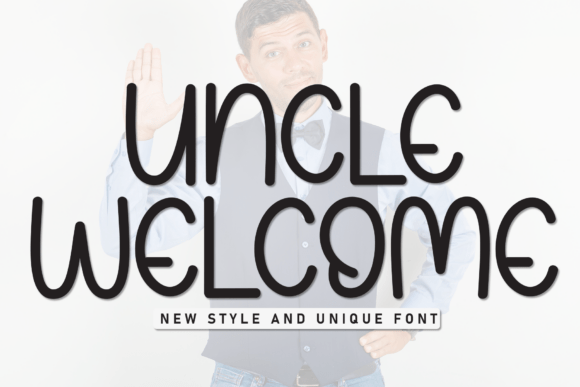
Uncle Welcome: A Handwritten Display Typeface for Editorial Charm
As someone who designs newsletters, crafts ebook covers, and structures long-form blog layouts, I pay close attention to how a single typeface can shift tone, guide attention, and reinforce voice. Uncle Welcome is one of those rare display fonts that doesn’t just sit on the page—it invites the reader in. With its warm, amiable handwriting style, it balances playfulness and polish in a way few script fonts achieve. It’s not overly ornate, nor does it sacrifice legibility for whimsy. That balance makes it unusually versatile across editorial formats—from digital-first publications to print-ready workbooks.
Why Uncle Welcome Fits Editorial Design So Naturally
At its core, Uncle Welcome is a handwritten display typeface, meaning it’s built for impact at larger sizes—not extended body text. Its strokes carry gentle variation, soft terminals, and subtle bounce, giving it organic rhythm without visual noise. The lowercase ‘a’, ‘g’, and ‘y’ feature friendly, open forms; the capitals have relaxed proportions and modest contrast—never stiff or formal. This isn’t calligraphy mimicking ink on parchment; it’s contemporary handwriting with intention. That distinction matters when you’re building trust through typography: readers sense authenticity, not affectation.
Where It Shines Across Your Publishing Workflow
Uncle Welcome works best where personality and pause matter most:
- Blog headers and hero banners: Paired with a neutral sans serif like Inter or Lora for body copy, it creates immediate warmth without compromising scannability—even on mobile.
- Ebook and digital magazine covers: Its charm helps lifestyle, wedding planning, or self-development titles stand out in crowded marketplaces while still feeling grounded and sincere.
- Newsletter lead graphics and quote overlays: Use it for pull quotes or opening lines in your weekly digest. Its rhythm encourages slower reading, which supports deeper engagement with your ideas.
- Chapter openers and section dividers: In printable guides or coaching workbooks, Uncle Welcome adds tactile personality before readers dive into dense content.
- Branded printables and lead magnets: From recipe cards to reflection worksheets, it signals care in craft—something readers associate with thoughtful, human-centered content.
Practical Layout Considerations
Because Uncle Welcome is a display font, avoid setting full paragraphs in it. Its strength lies in contrast: use it for titles, subheadings, accent phrases, and cover text. For longer reading—whether in an ebook PDF or responsive blog post—pair it with a highly readable serif (like Merriweather or PT Serif) or a clean, low-contrast sans serif (like Source Sans Pro or Open Sans). This pairing respects hierarchy: Uncle Welcome draws the eye; your body font carries the weight of meaning.
On screen, test sizing carefully. At 24–36px, it reads beautifully on desktop and tablet. Below 20px, detail begins to soften—so reserve it for headings and decorative accents on mobile, not navigation labels or captions. For print, its generous x-height and open counters ensure clarity even at 18pt in booklet interiors or planner headers.
Typography That Supports Brand Identity
Consistency builds recognition—and Uncle Welcome supports that quietly but effectively. If your publication centers around empathy, celebration, or intentional living, this font becomes part of your voice, not just decoration. Imagine a wedding planning newsletter using Uncle Welcome for email subject lines and cover images, then switching to a warm serif for advice columns. Or a digital magazine about mindful parenting applying it to chapter titles and illustrated quote cards, reinforcing calm creativity across issues.
It also adapts well to color and texture. Try it in muted terracotta on cream paper stock for a printed guide, or in charcoal gray over soft lavender for a digital planner. Because it’s not overly stylized, it avoids dating quickly—a practical advantage for creators building long-term content brands.
What’s Included—and What You’ll Need to Know
The Uncle Welcome family includes standard OpenType features: discretionary ligatures, stylistic alternates, and contextual swashes. These aren’t gimmicks—they let you fine-tune rhythm and spacing, especially in headlines or logo-like applications. While it supports Latin-based languages (English, Spanish, French, Portuguese), verify multilingual needs if publishing beyond those. There’s no bold or italic weight—its expressive nature lives in its base design, not mechanical variants—so rely on size, color, and spacing for emphasis instead.
A Thoughtful Tool, Not Just a Trend
In an era where algorithm-driven feeds reward speed over soul, typography remains one of the few tools we have to slow things down—to signal care, warmth, and intention. Uncle Welcome doesn’t shout. It leans in. That makes it ideal for creators who value resonance over reach: bloggers crafting heartfelt posts, designers shaping quiet luxury magazines, educators building reflective learning materials. It’s not about making everything “cute.” It’s about choosing a typeface that reflects how you want readers to feel—not just what you want them to know.
When your next cover, header, or printable needs character without clutter, consider Uncle Welcome—not as decoration, but as editorial ally.